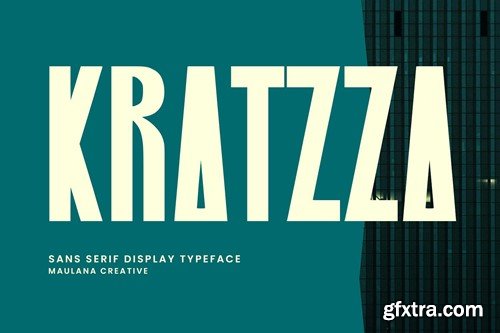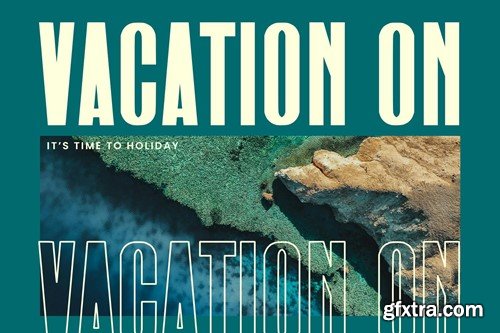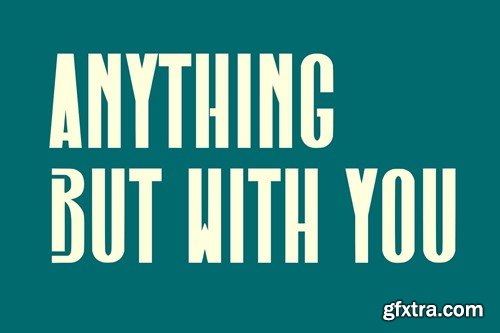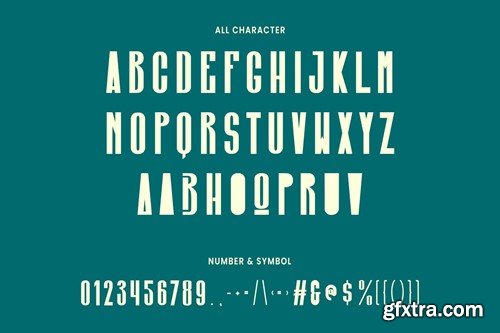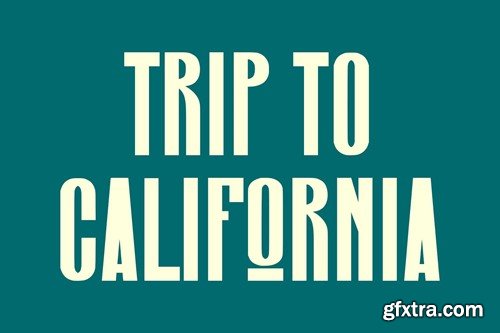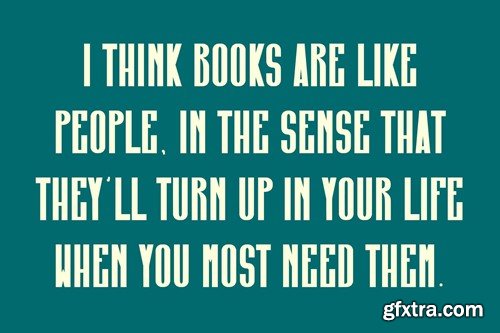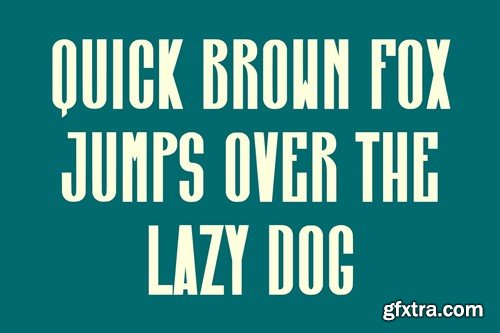
Kratzza Sans Serif Display Font
Kratzza sans serif font. Heavy stroke, fun character with a bit of ligatures. To give you an extra creative work. Kratzza sans serif font support multilingual more than 100+ language. This font is good for logo design, Social media, Movie Titles, Books Titles, a short text even a long text letter and good for your secondary text font with script or serif. Make a stunning work with Kratzza sans serif font. What you get: